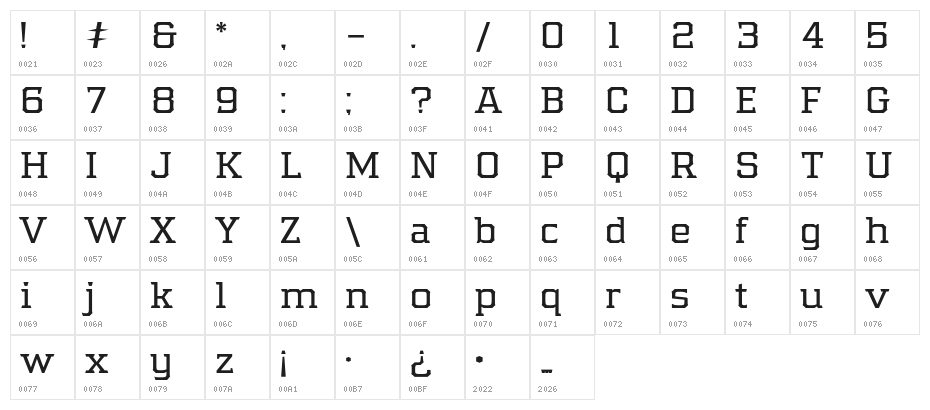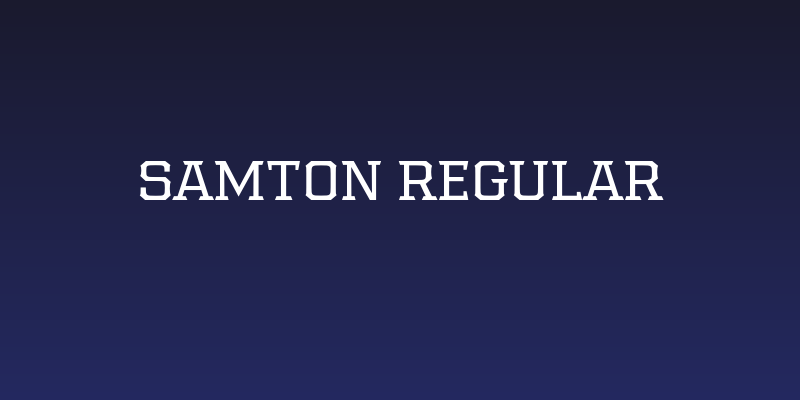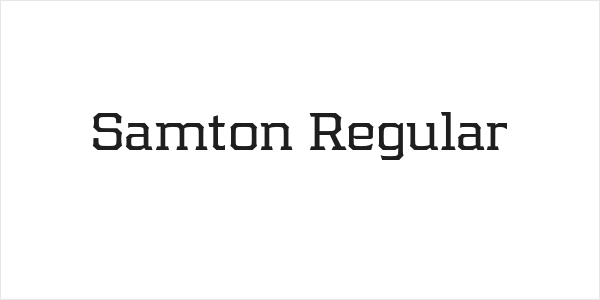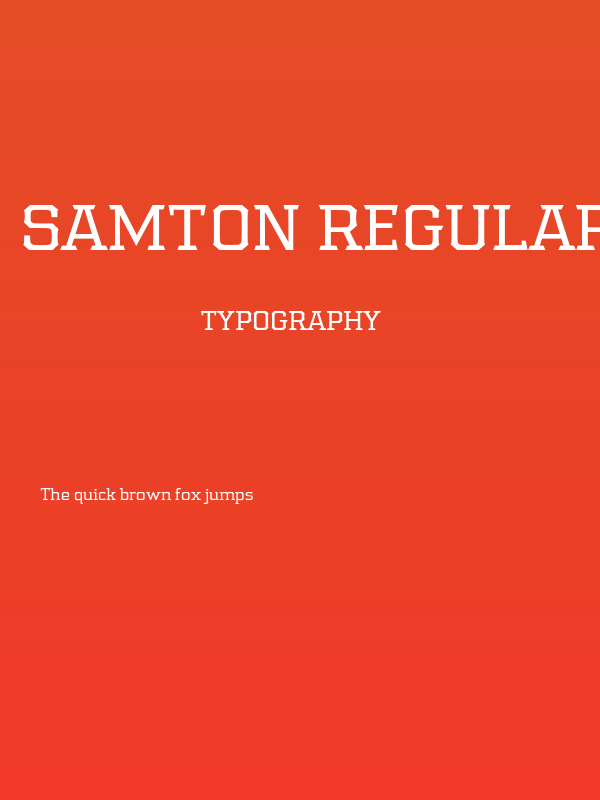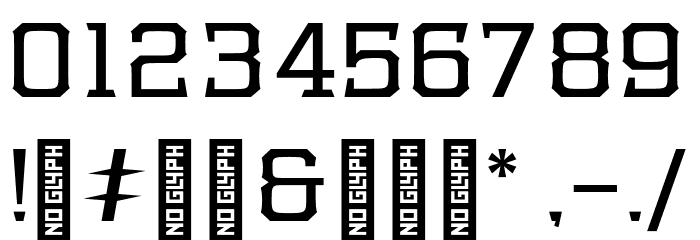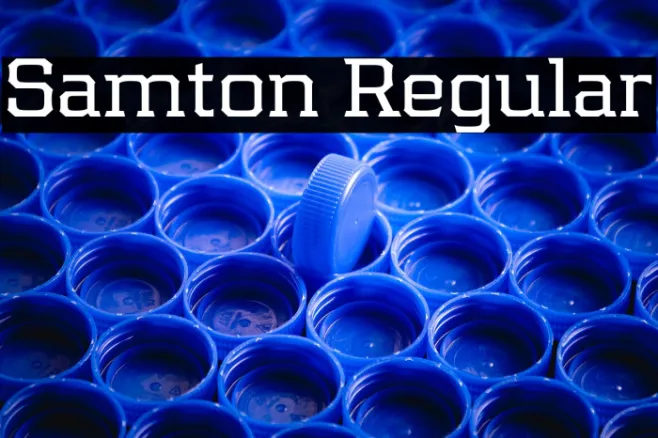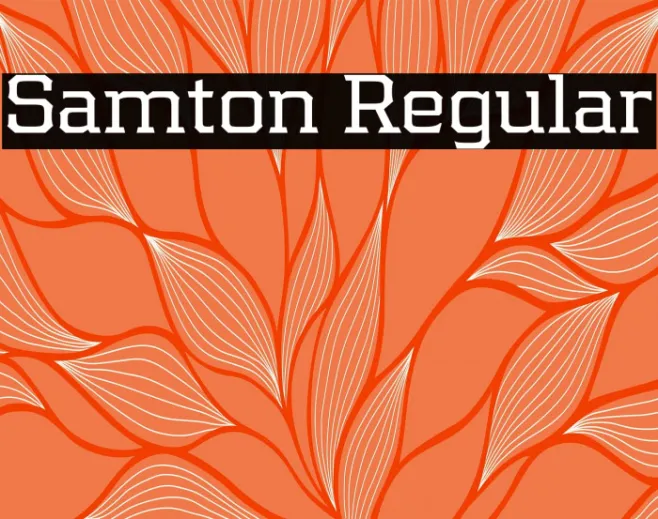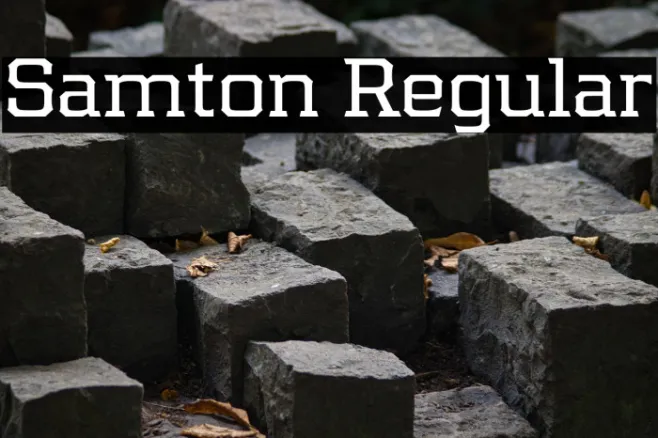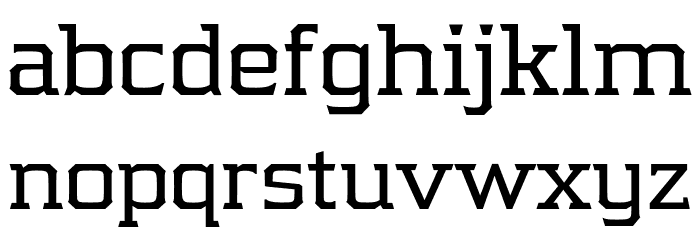
Samton Regular Font
Samton Regular Description
This font features a bold and structured design with a modern twist. The characters are crafted with a geometric precision, showcasing a uniform stroke width that gives it a clean and professional appearance. The uppercase letters are particularly striking, with sharp angles and a strong presence, while the lowercase letters maintain a consistent style that complements the overall aesthetic. The numerals are clear and easily distinguishable, making them suitable for a variety of applications. Special characters are included, adding versatility to the font's use. The design is both functional and stylish, making it ideal for projects that require a contemporary and authoritative look.
| Proposed Projects | Ideal for branding, headlines, posters, and digital media that require a strong visual impact. |